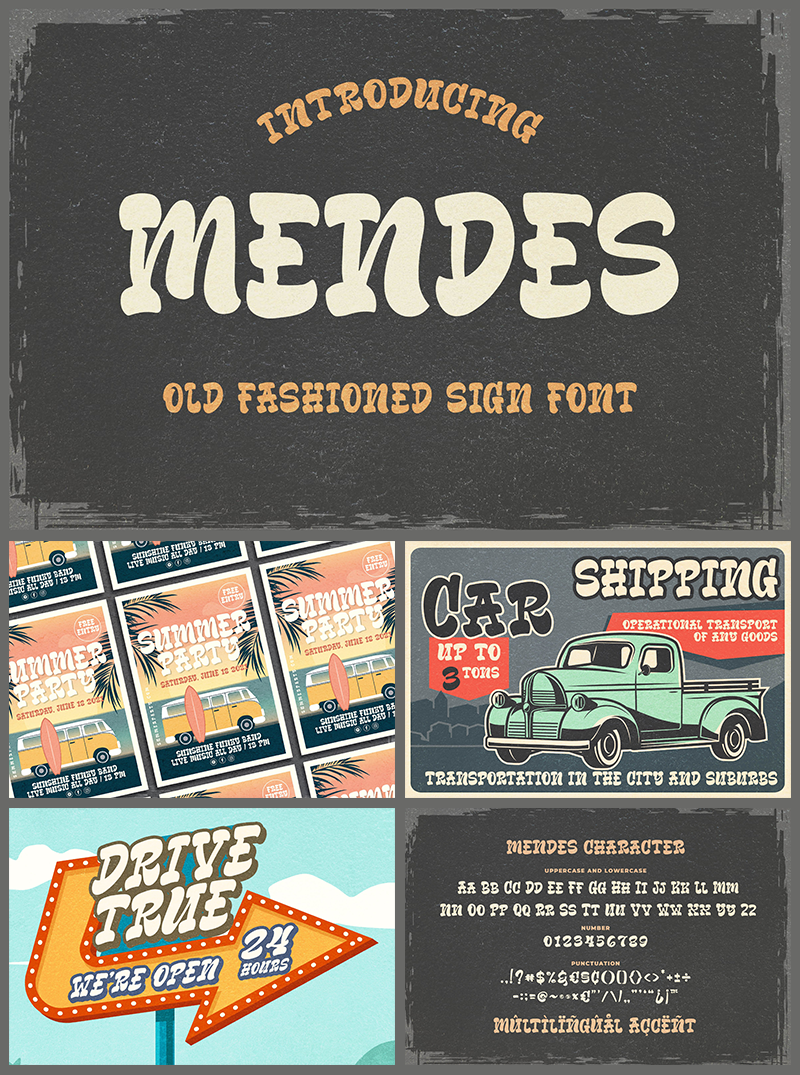
Mendes
Introducing Mendes, a captivating and playful display font designed to elevate your creative projects. This unique font marries a fun, whimsical aesthetic with a charming vintage touch, making it an ideal choice for various design applications. Whether you're working on branding materials, social media graphics, or eye-catching posters, Mendes will undoubtedly make your designs stand out from the crowd.
With its bold and distinctive characters, Mendes adds a sense of personality and flair, engaging your audience while maintaining clarity. Perfect for both digital and print projects, this font is versatile enough to be used in a range of contexts, from playful event invitations to modern product packaging. Choose Mendes for your next project and enjoy the way it brings your designs to life with its delightful charm and eye-catching appeal.